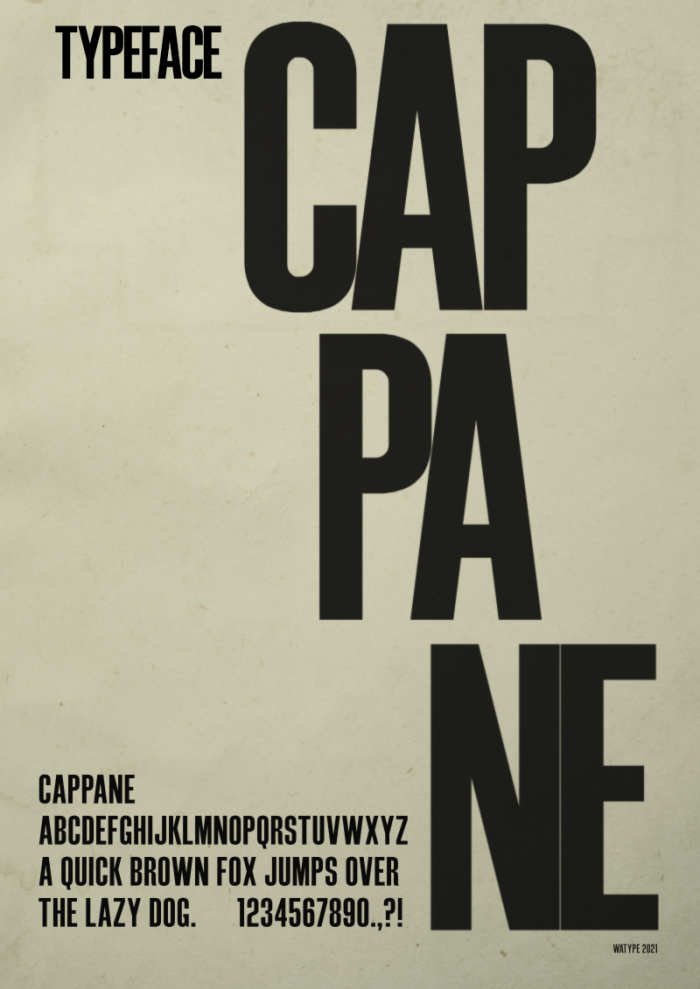
Wow, very professional!
Congratulations! FontStruct Staff have deemed your FontStruction worthy of special mention. “Cappane” is now a Top Pick.
How classical and pro! Congrats on the TP :)
Kind of reminds me of Haettenschweiler, which kind of reminds me of Impact…